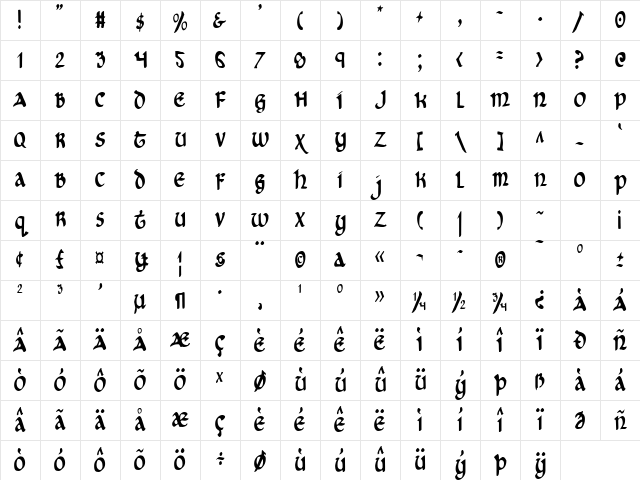
Cry Uncial Condensed Free Font
Cry Uncial Condensed Cry Uncial Condensed
Style: Cry Uncial Condensed
Design Context for Cry Uncial Condensed
Cry Uncial Condensed is a composed and adaptable typeface that performs quietly and consistently across a wide range of design contexts. Its narrow stance lets it pack a punch even in space-constrained designs.